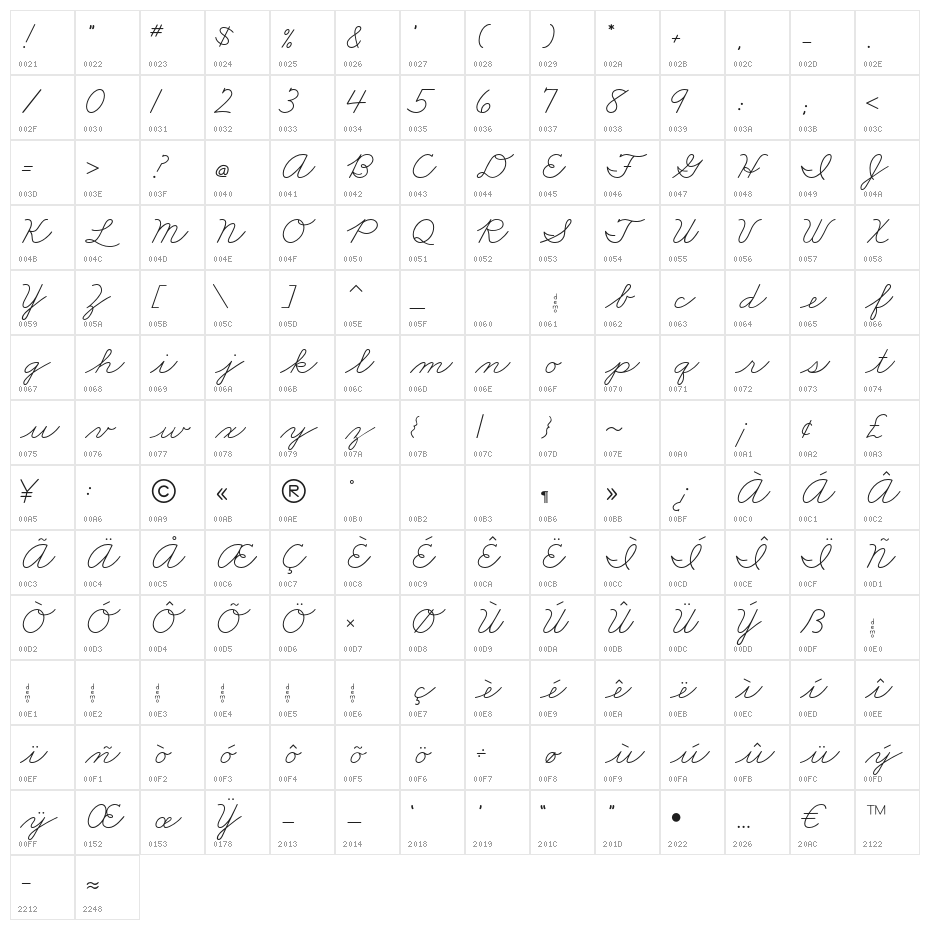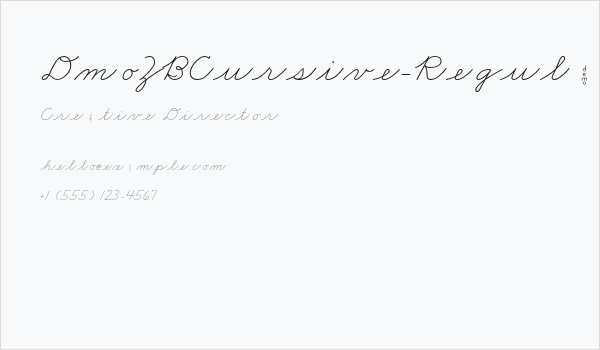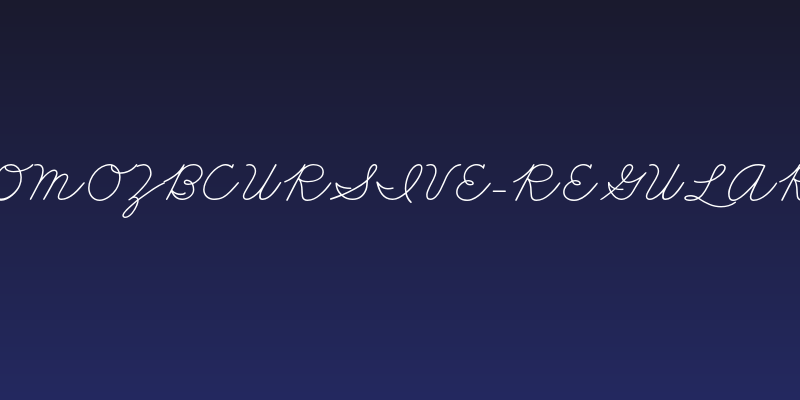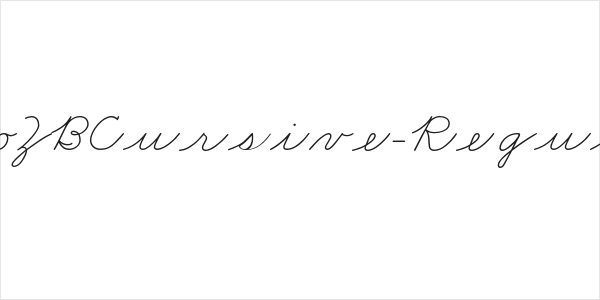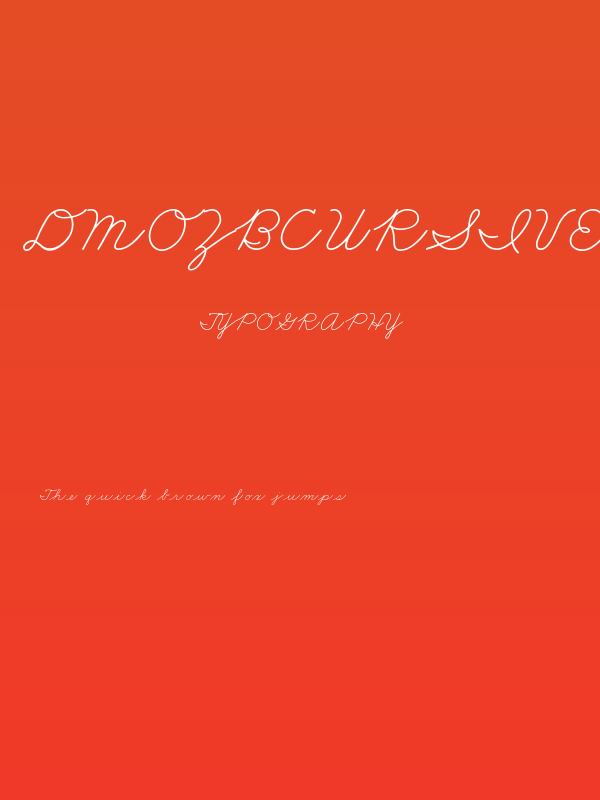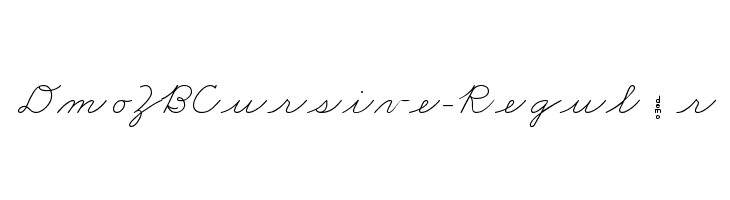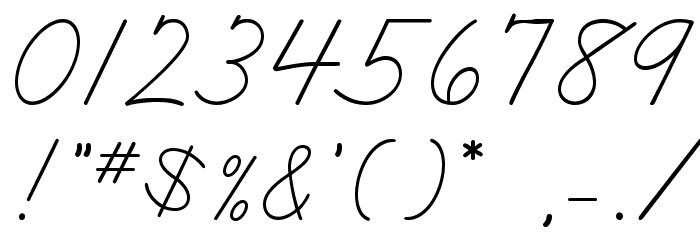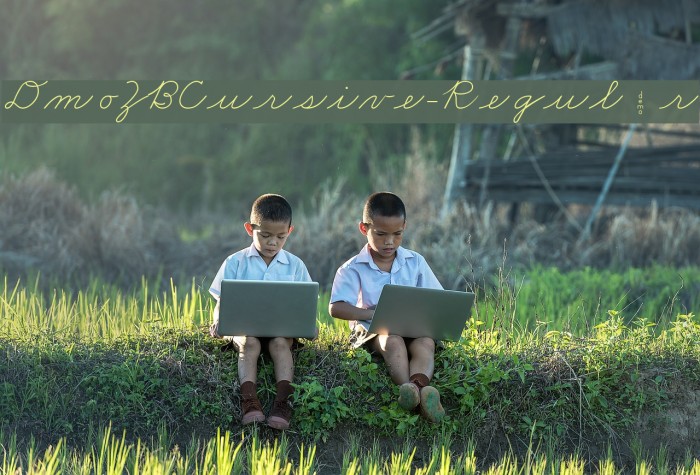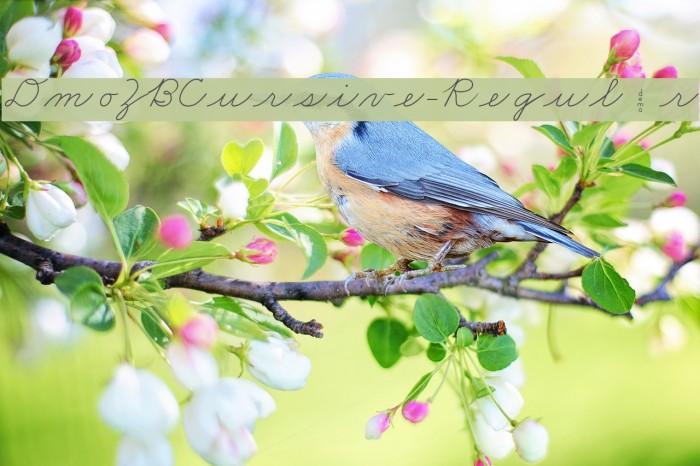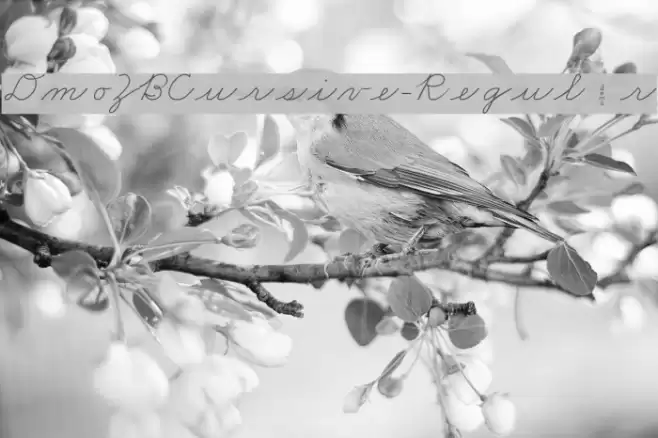
DmoZBCursive-Regular Font
DmoZBCursive-Regular Description
This elegant cursive font features smooth, flowing lines that connect seamlessly, creating a sophisticated and graceful appearance. The uppercase letters are slightly larger and more pronounced, while the lowercase letters maintain a consistent, flowing style. The numerals are clear and easy to read, complementing the overall cursive design. Special characters are integrated with the same fluidity, ensuring a cohesive look across all text. This font is perfect for projects that require a touch of elegance and refinement.
| Overall Style | Elegant |
| Use Case | Logos, Invitations, Personal stationery |
| Proposed Projects | Ideal for wedding invitations, elegant branding, personal stationery, and artistic projects. |